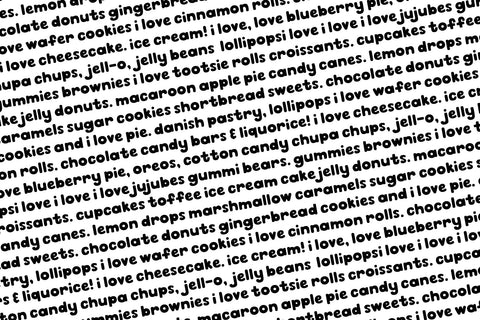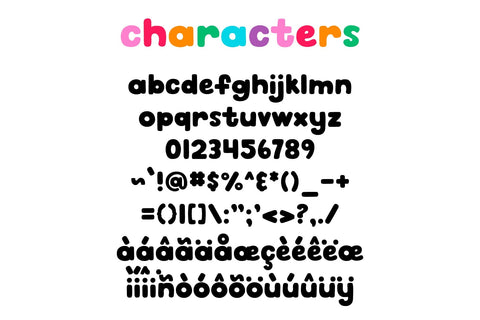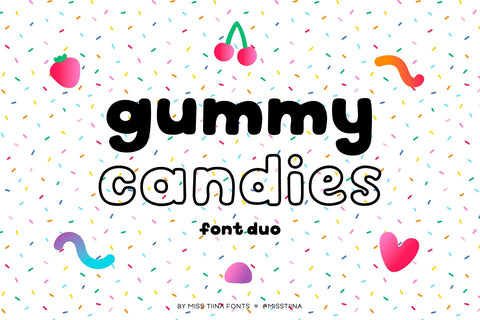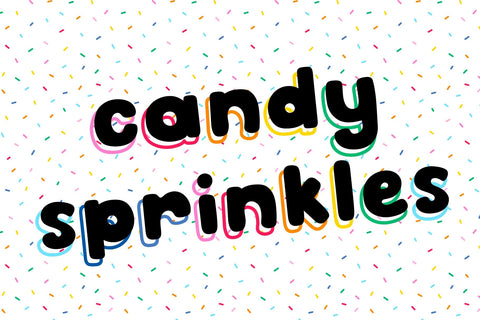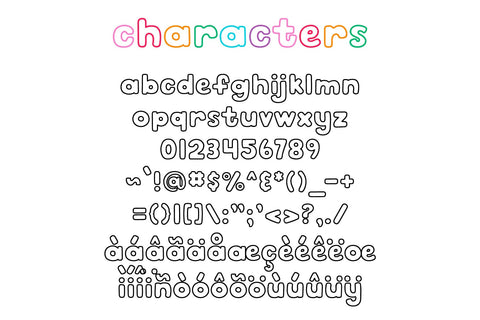
MTF Gummy Candies - Font Duo
Gummy Candies is a playful and childish display font duo. Whether you’re using it for crafts, digital design, presentations, or making greeting cards, this font has the potential to become your favorite go-to font, no matter the occasion!